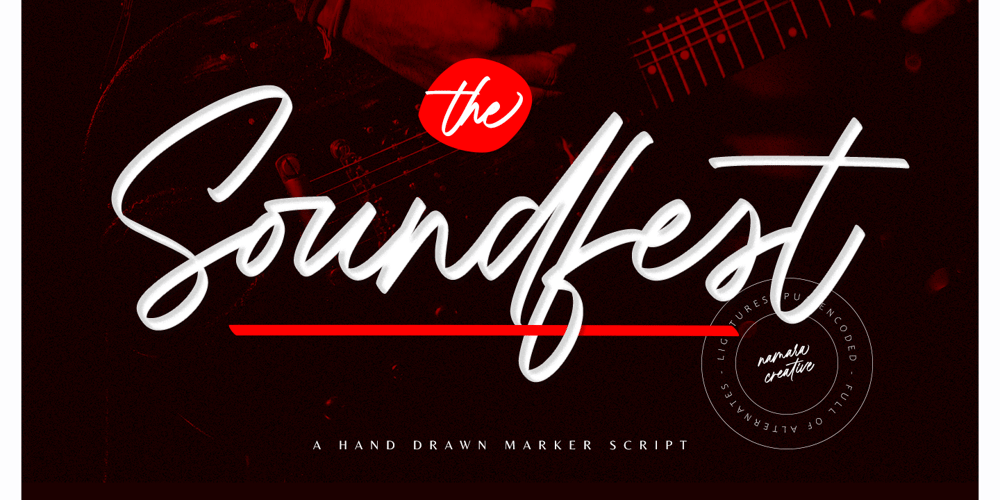
Soundfest Font Family was designed by Eep Apringga and published by Namara Creative Studio. Soundfest contains 1 styles and family package options. modern marker script font, carefully crafted letters / alphabet in a completely natural hand-drawn look. Perfect for logo, branding projects, wedding designs, product packaging or simply as a stylish text overlay to any background image.Features : Full Set of standard characters and punctuations. Over 450+ characters (include : alternate sets, ligatures and multilingual support) PUA Encoded | no special software needed to access extra characters.